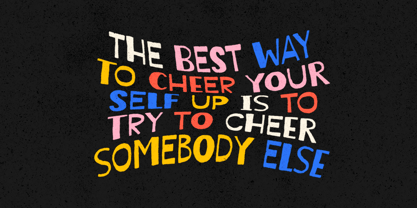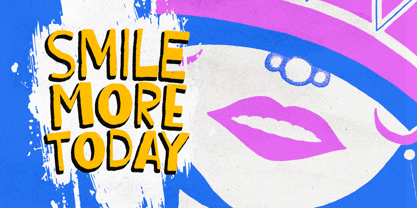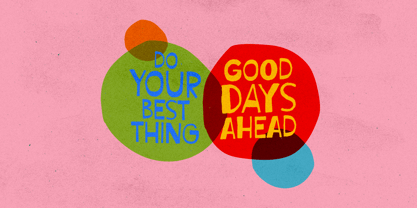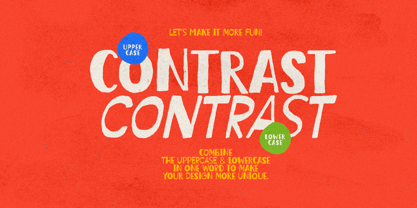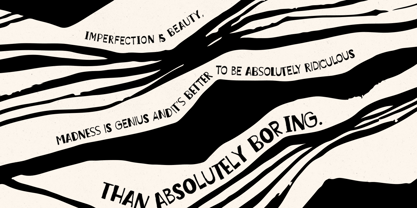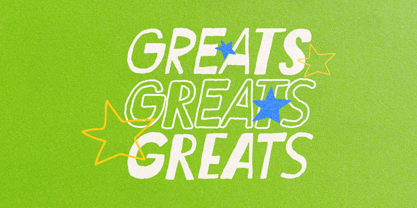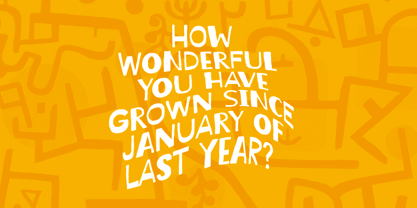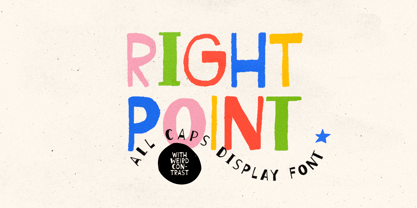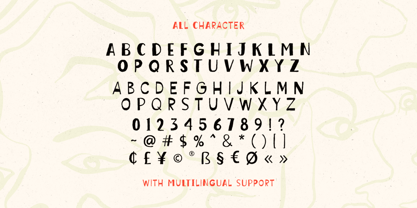
Right Point
La familia tipográfica Right Point fue diseñada por Sarid Ezra, Liwa Shidqy y publicada por Bale Type. Right Point contiene 2 estilos y opciones de paquete familiar.
Right Point is an all caps display sans that have weird shape and contrast. With the rough and handmade looks, this font will make your project have an artistic touch. You can use this font for any purposes especially the project that needs weird and bold visual. This font also suitable for your book cover and kids stuff. With the different shape of the lowercase and uppercase, you can combine them in one word to make your design looks more stunning. Right Point also support multi language!